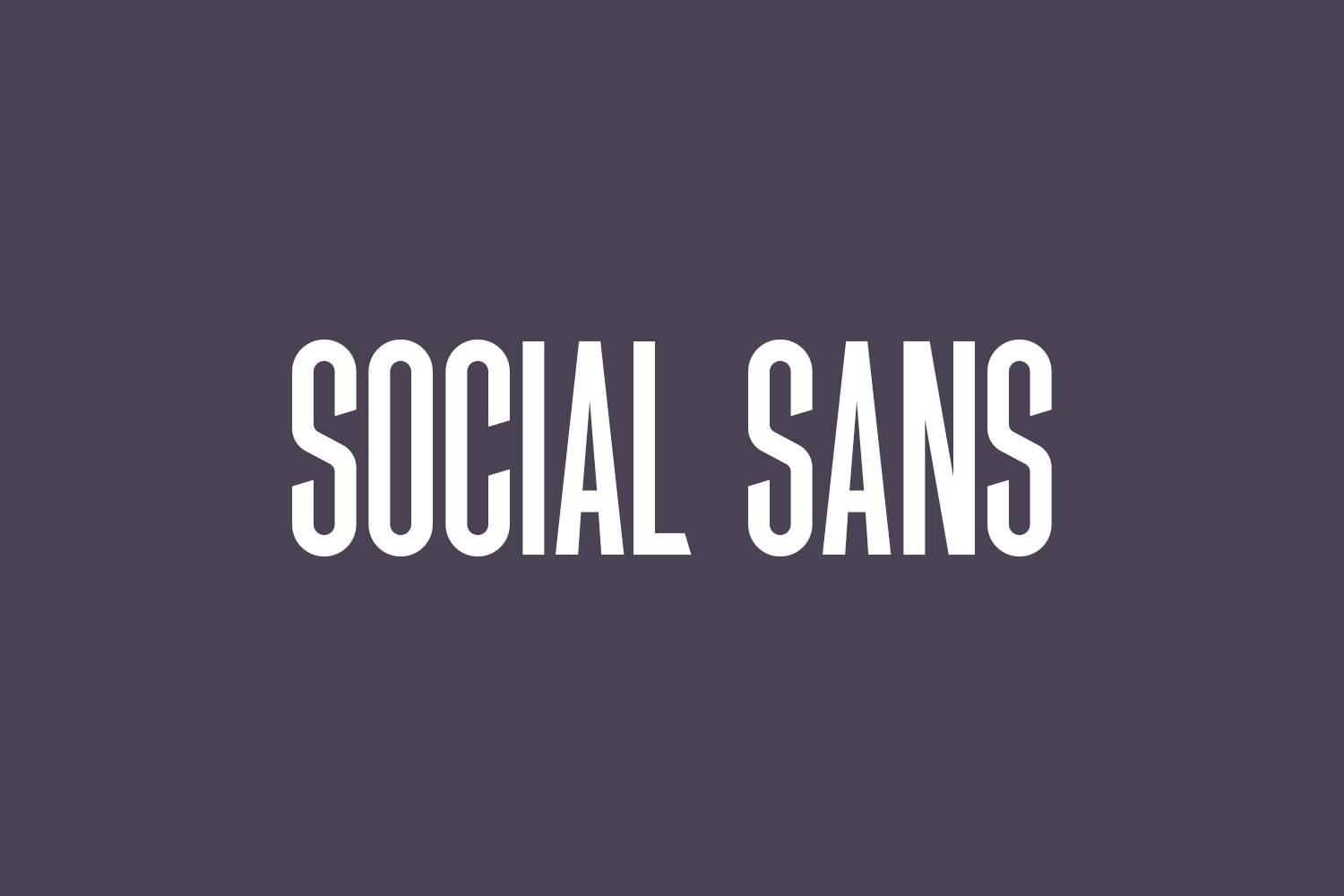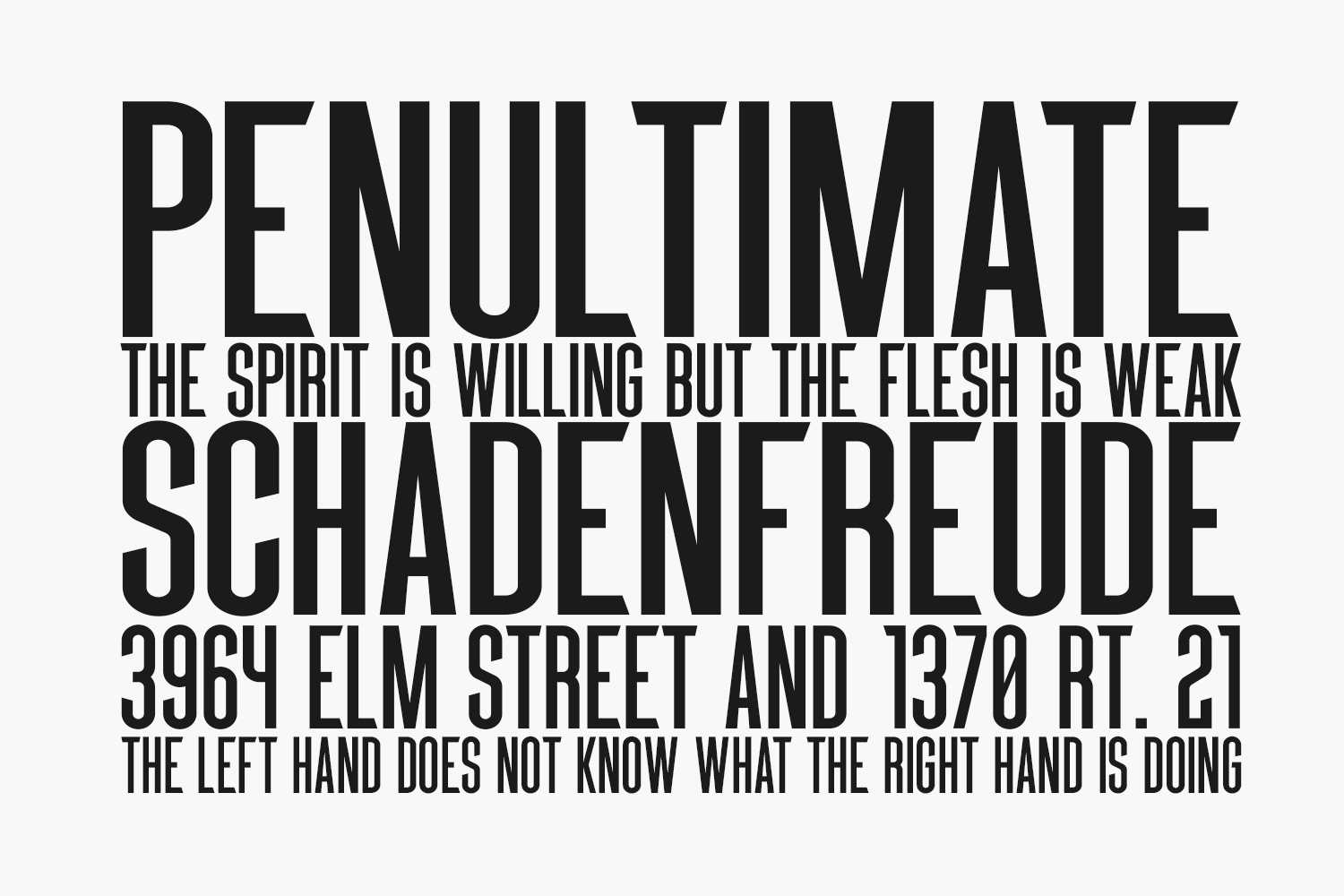
Social Sans Free Font – Clean & Modern Typeface for UI and Editorial Design
Social Sans is a clean, modern sans-serif typeface designed by BfredDesign to bring clarity and minimalism to your creative projects. With its neutral structure, open letterforms, and balanced proportions, this free decorative font works perfectly for crafting elegant logos, website headers, social media graphics, digital interfaces, and more. Available in TTF format — ideal for designers seeking a versatile, readable font that enhances legibility without overpowering your layout.
Why Choose Social Sans?
- Clean Minimalist Style: Combines simplicity with functionality for a sleek, professional appearance.
- Ideal for UI & Web Design: Perfect for websites, app typography, or landing page buttons where clear communication is key.
Where to Use Social Sans?
Social Sans shines across a variety of design applications:
- Logos & Brand Identity: Adds sophistication to brand identities for tech startups, lifestyle blogs, or minimalist studios needing a clean tone.
- Digital Interfaces: Ideal for web headers, mobile app text, or landing page buttons where readability is essential.
- Editorial Headers: Stands out in blog titles, magazine covers, and banners with a crisp, stylish charm.
- Packaging Design: Enhances product tags on artisanal goods, clothing labels, or food packaging requiring a modern look.
- Social Media Graphics: Creates bold text overlays for Instagram Stories, TikTok videos, or YouTube banners with a sleek presence.
Design Tips with Social Sans